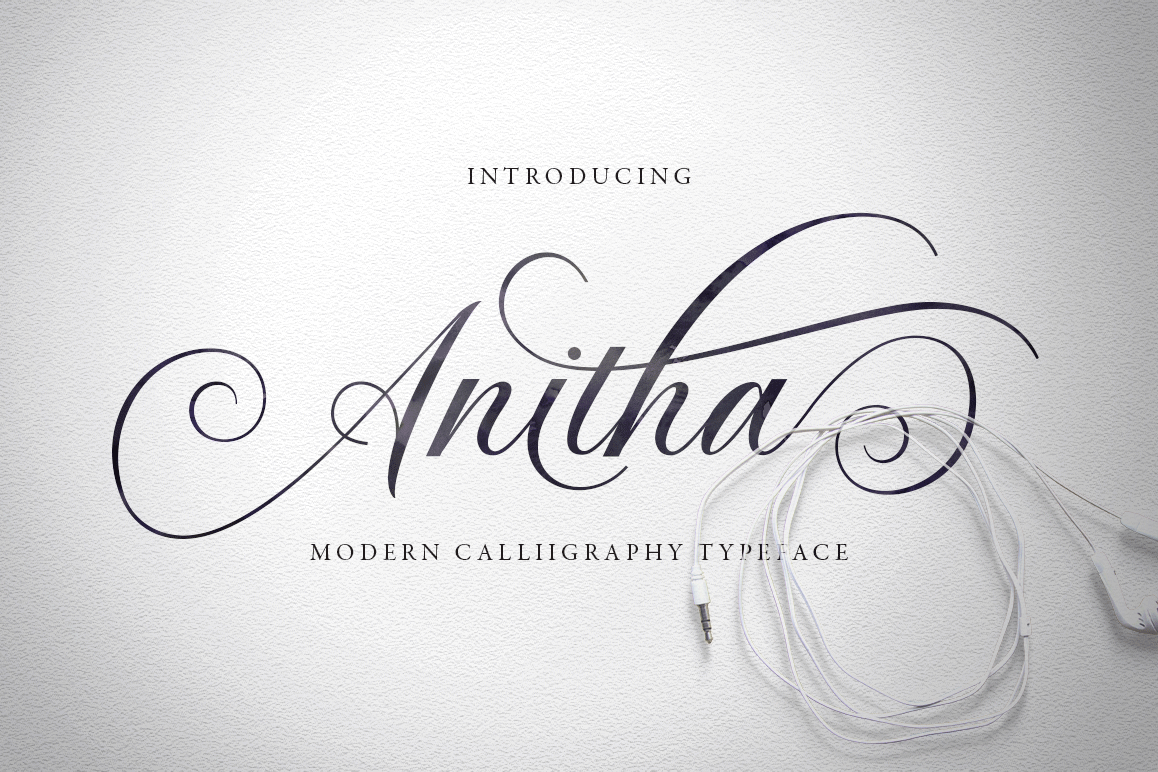
Anitha
Anitha is another lovely modern calligraphy typefaces, which is combining the style of classic calligraphy with an modern style. combines from copperplate to contemporary typeface with a dancing baseline, modern and elegant touch. Anitha features 496 glyphs and alternate characters Include . including initial and terminal letters, alternates, ligatures and multiple language support..The Features of this fonts is;
• Standart ligatures
• Discretionary ligatures
• Swash Alternates
• Stylistic sets